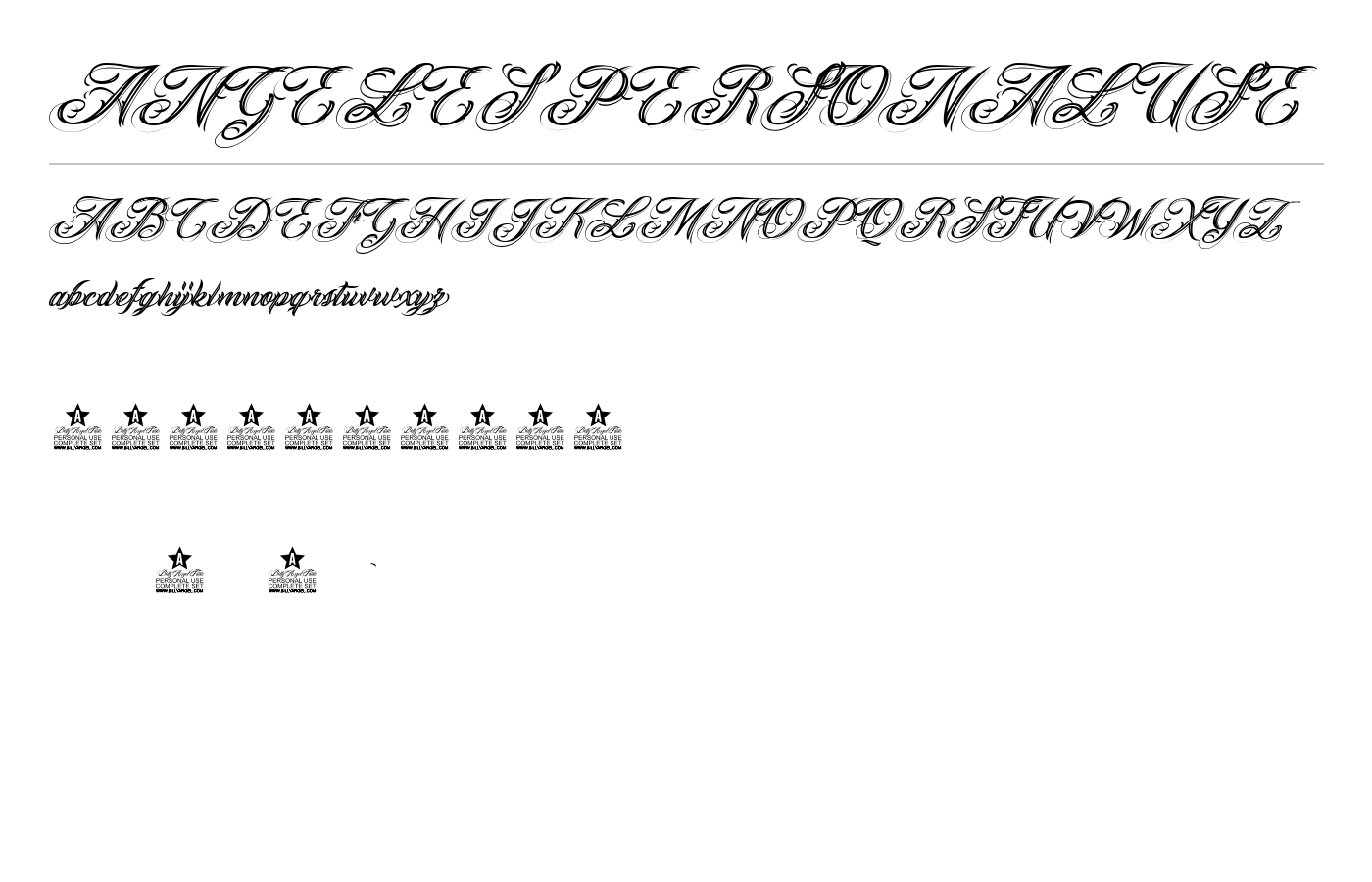
Angeles Personal Use is an elegant script font characterized by its flowing, decorative letterforms with high contrast between thick and thin strokes. It features intricate swashes and a calligraphic style that conveys sophistication and classic charm, making it ideal for formal invitations, branding, and luxury design projects. This font works best in headlines or decorative text where its ornamental beauty can shine without sacrificing readability.
ANGELES PERSONAL USE Font
About ANGELES PERSONAL USE Font
| Font family | ANGELES PERSONAL USE Font |